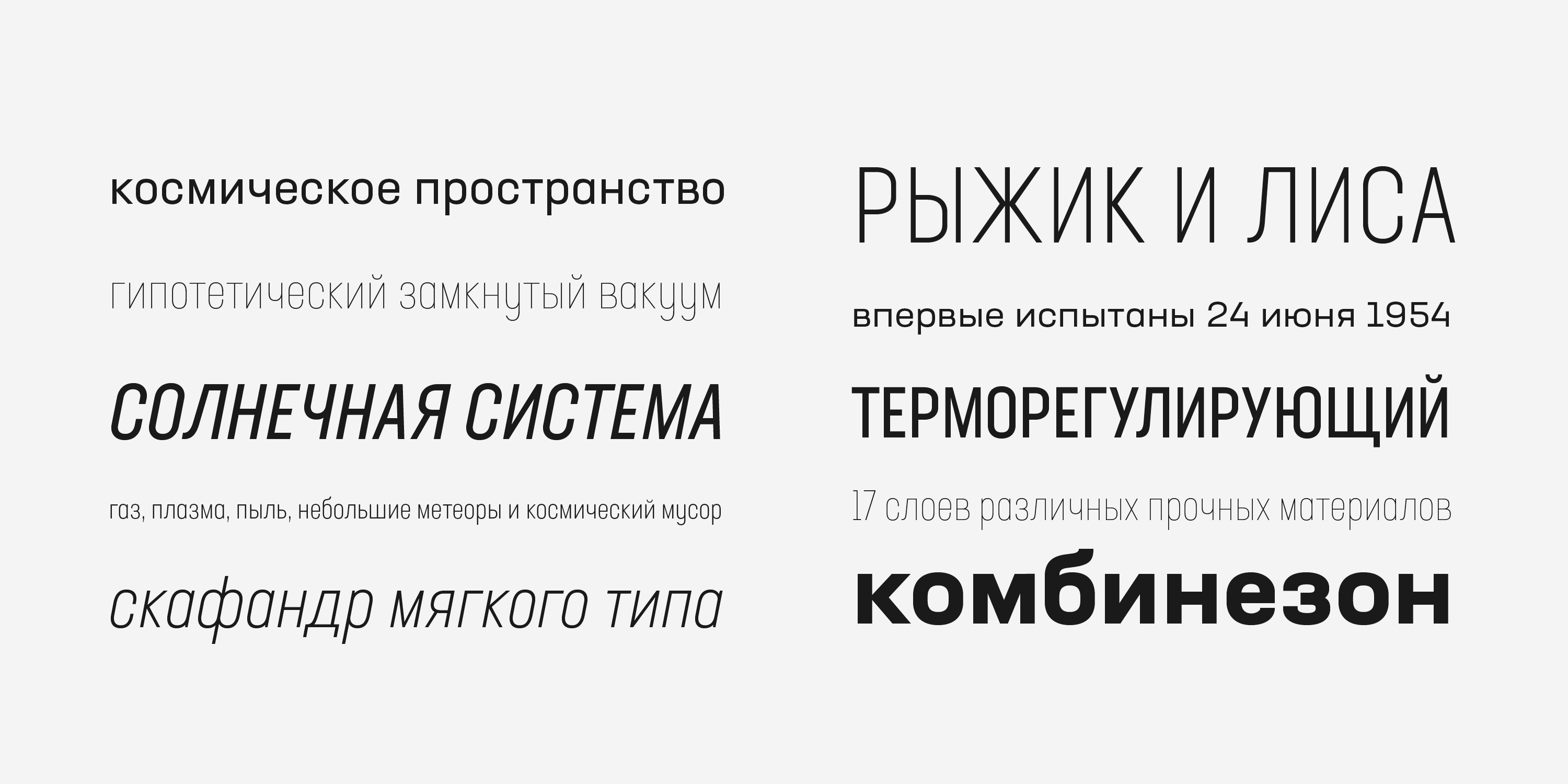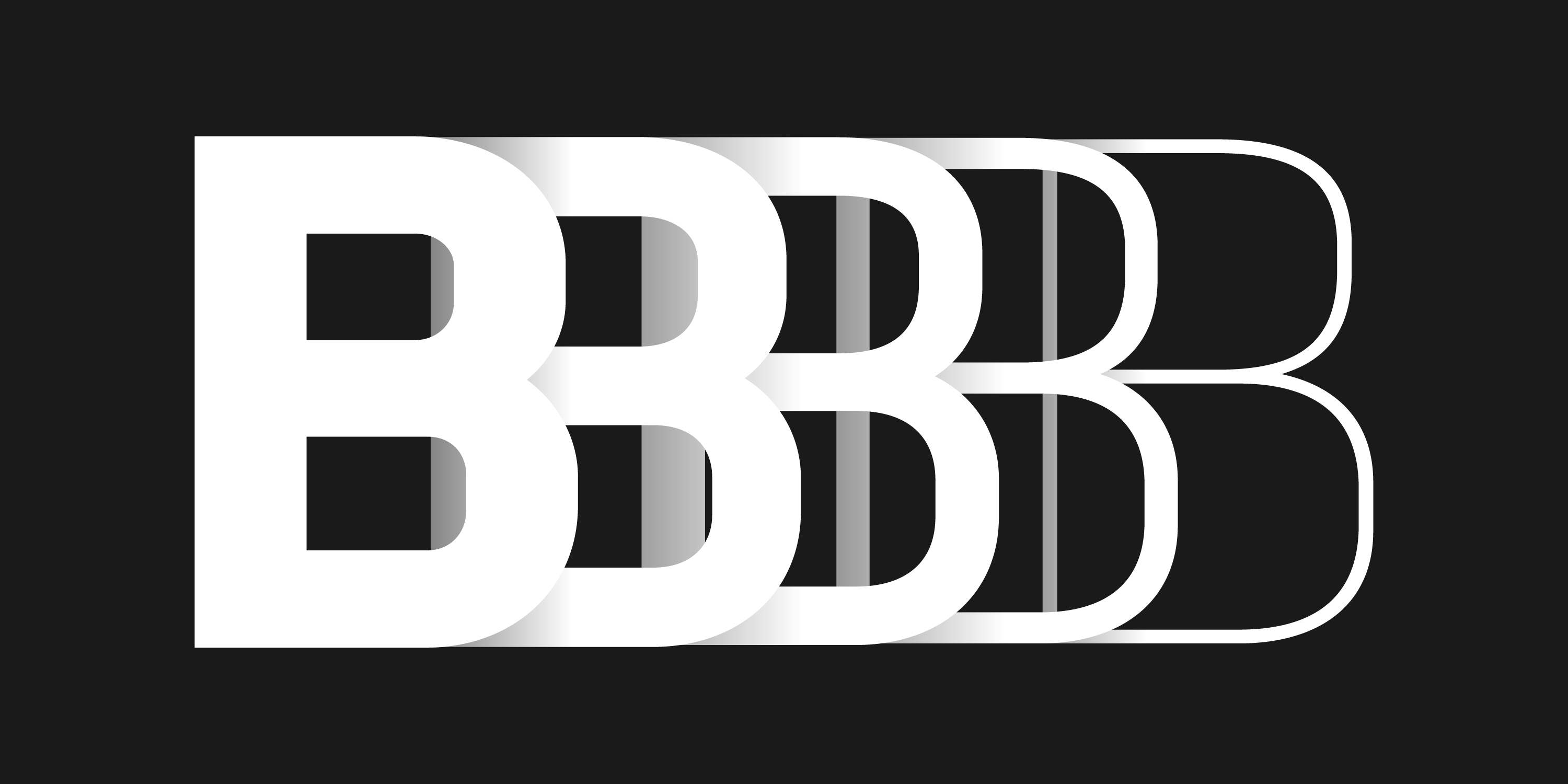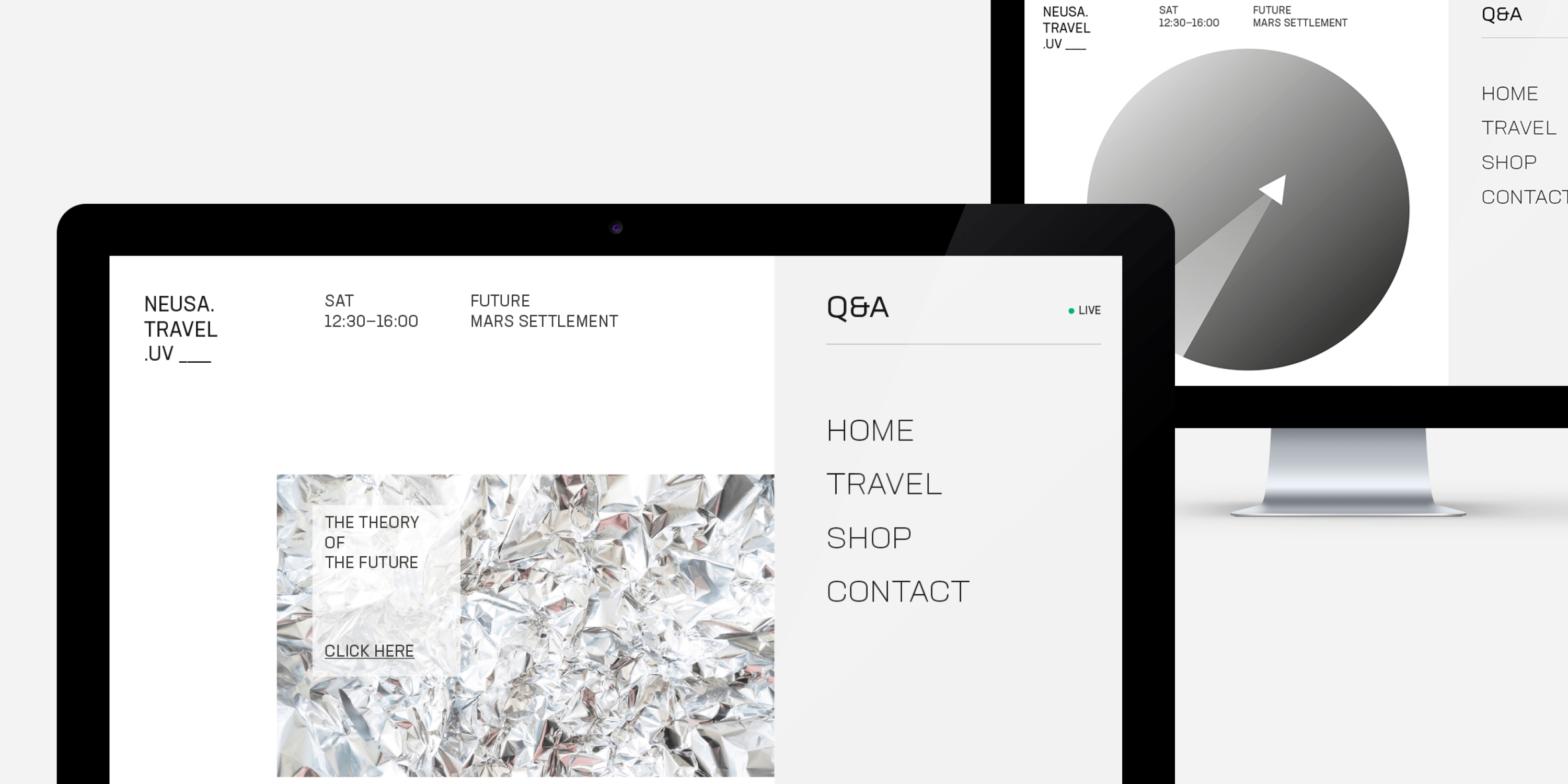
Neusa next is a geometric sans serif type family designed by maria v. Amazing, business, classy, contemporary, creative market, font, font family, roman, russian fonts, sans serif, urban fonts suited to your project, and it does not matter whether it is a printed poster or picture monitor. The font is available in all formats (neusa next pro woff2, neusa next pro woff, neusa next pro ttf, neusa next pro eot) and applicable to the website, photoshop and any os.
Pigoulevskaya, Neusa Next Pro Is A Sans Serif Font Family.
Neusa Next Is A Geometric Sans Serif Type Family Designed By Maria V.
Neusa next pro wide italic — $38. Neusa next is suitable for text layout with distinctive characteristics that will perfectly match your display settings. Its wide range of weights, widths and matching italics provides the designer with a complex and rich typographic palette.